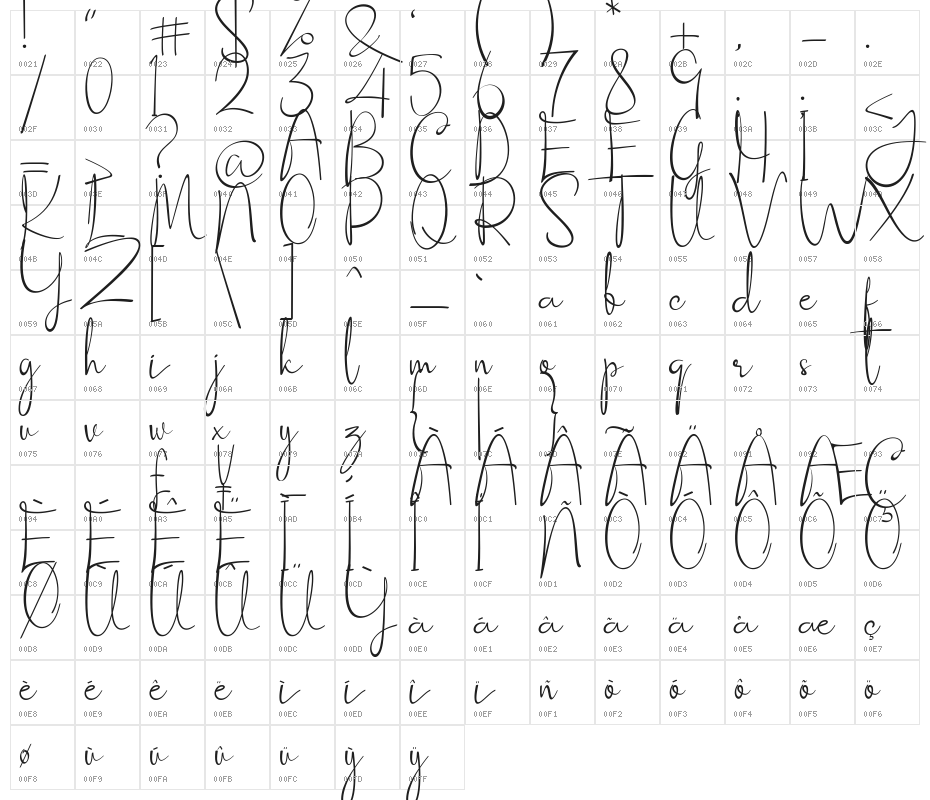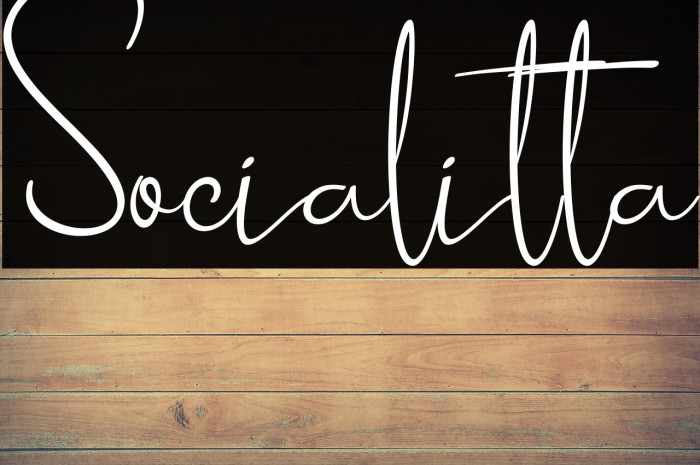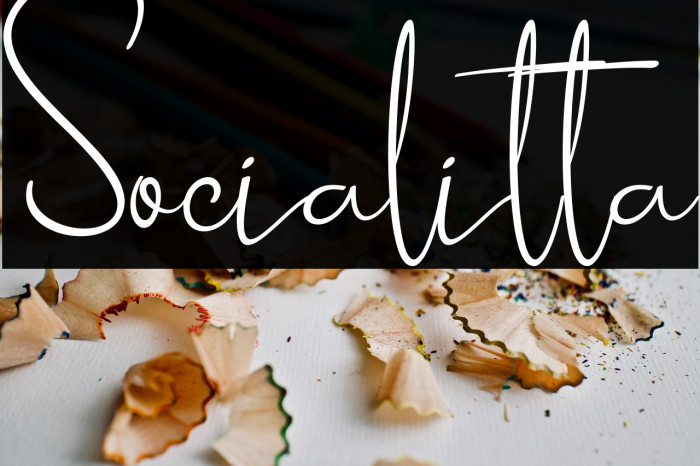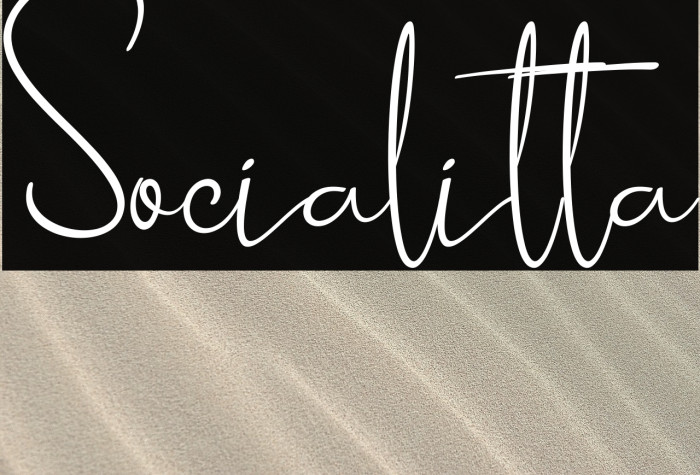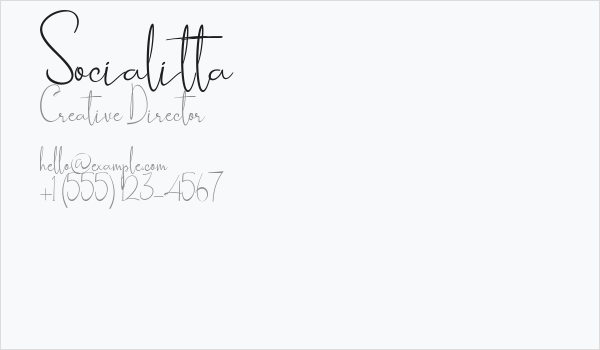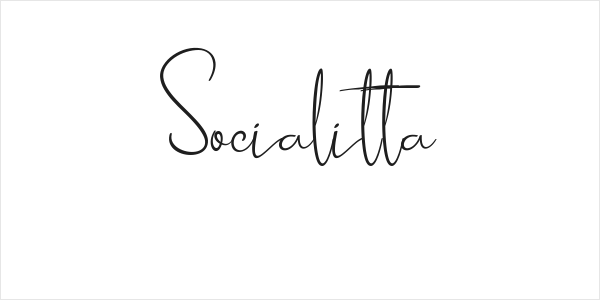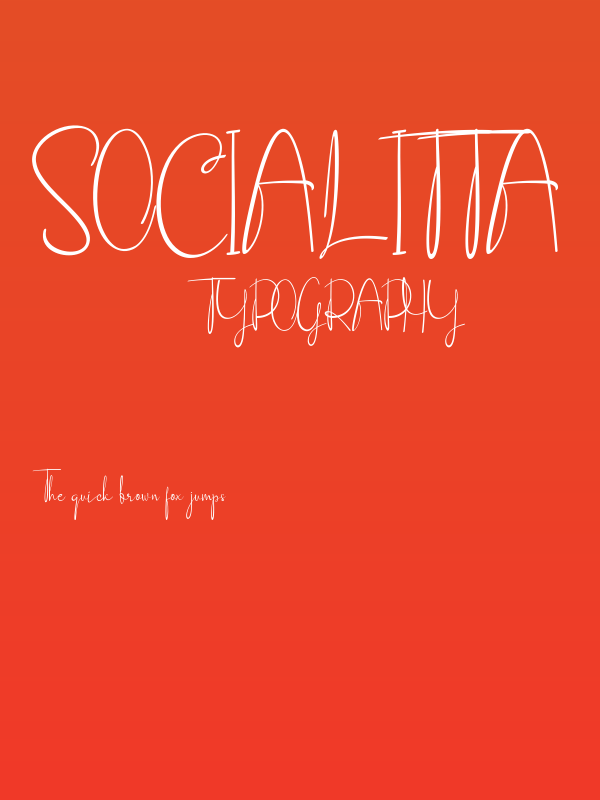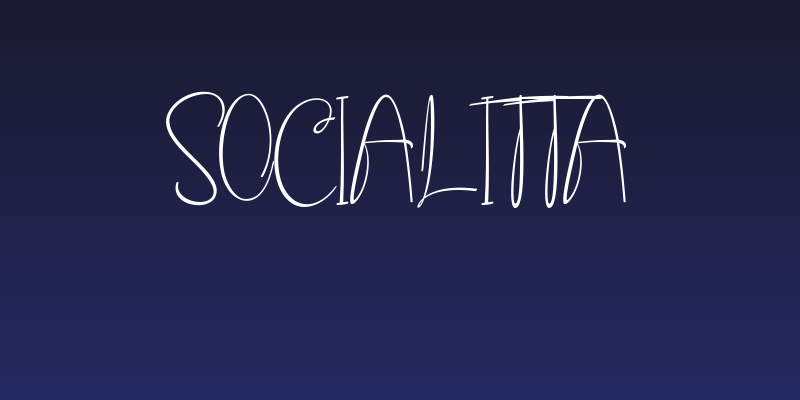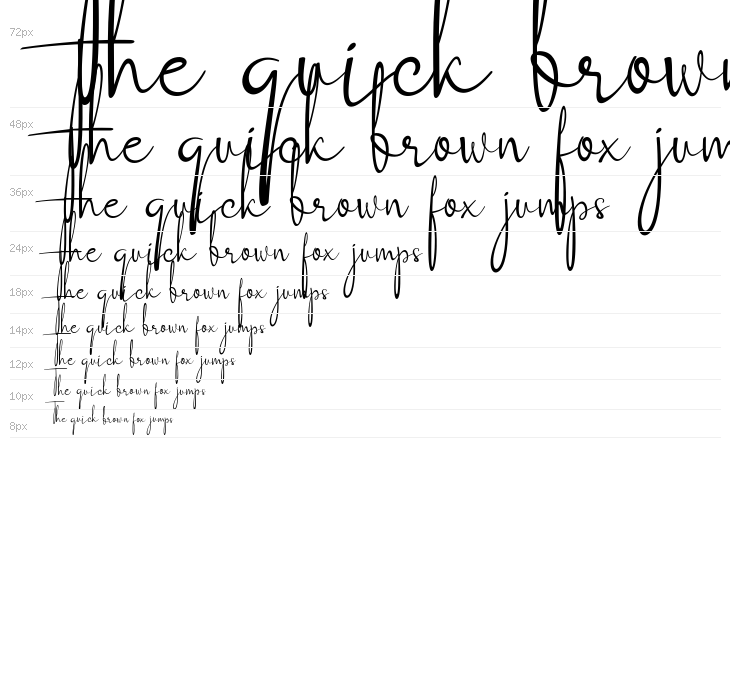
Socialitta Font
Socialitta Description
This font features a playful and whimsical handwritten style, characterized by its flowing, cursive-like strokes. The letters are tall and slender, with a consistent stroke width that gives it a clean and modern appearance. The uppercase letters maintain a sense of elegance with their elongated forms, while the lowercase letters are more relaxed and casual. Numbers and special characters follow the same fluid style, making them easily recognizable and harmonious with the alphabet. The overall design is both artistic and approachable, suitable for projects that require a personal touch.
| Proposed Projects | Ideal for greeting cards, invitations, personal branding, and creative projects that require a whimsical touch. |